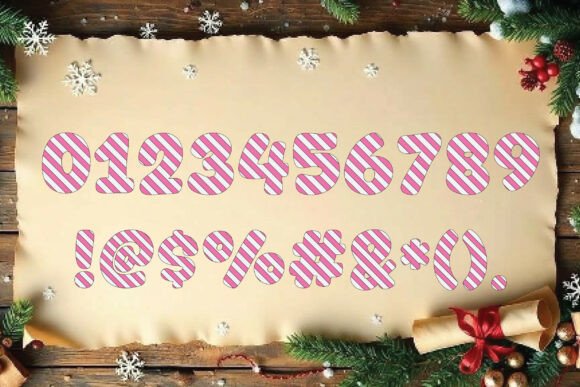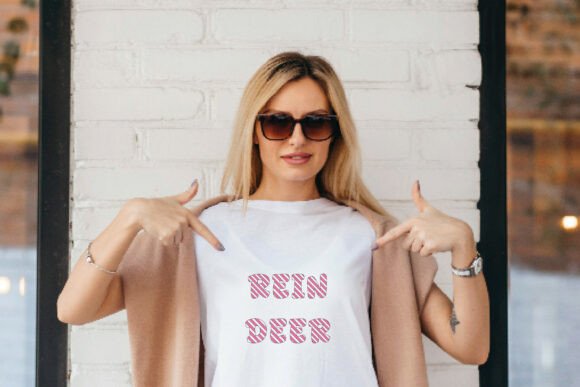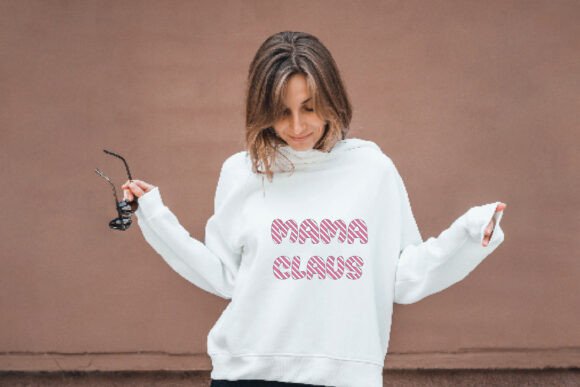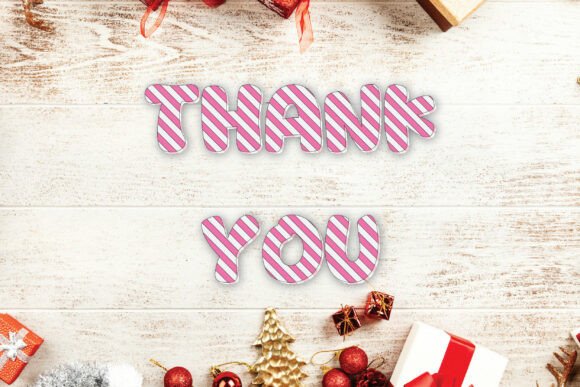
Introduction to Pink Candy Cane Alphabet Font
๐ญ Pink Candy Cane Alphabet & Holiday Letters Pack โ Cute Christmas Edition Add sweet festive charm to your holiday designs with the Pink Candy Cane Alphabet, featuring fun and colorful candy caneโstyle letters in soft pink tones.
Key Features of Pink Candy Cane Alphabet Font
Why Choose Pink Candy Cane Alphabet Font?